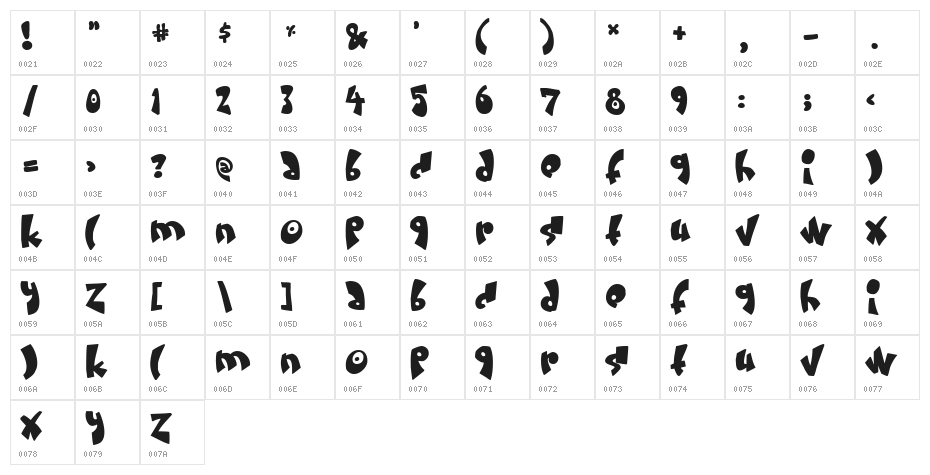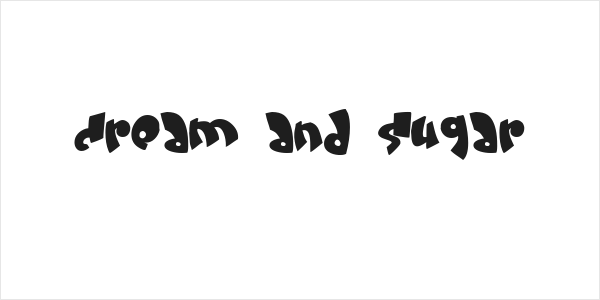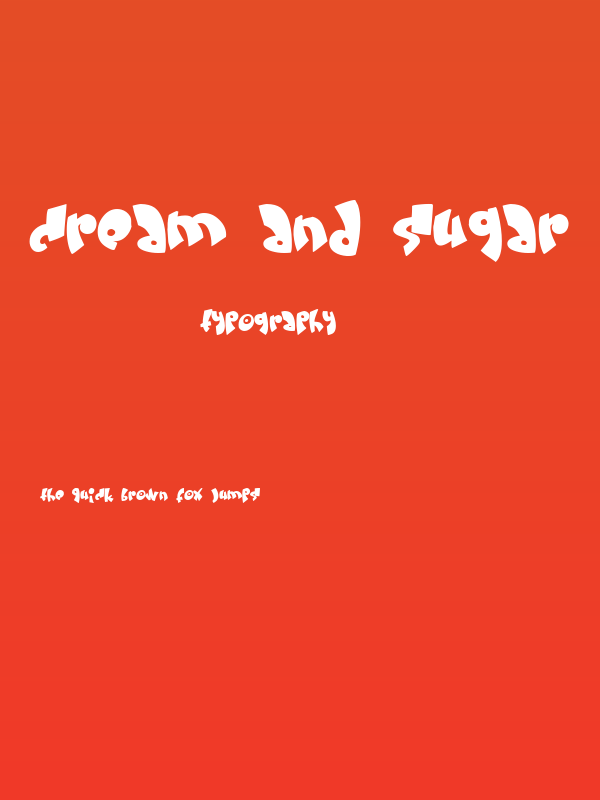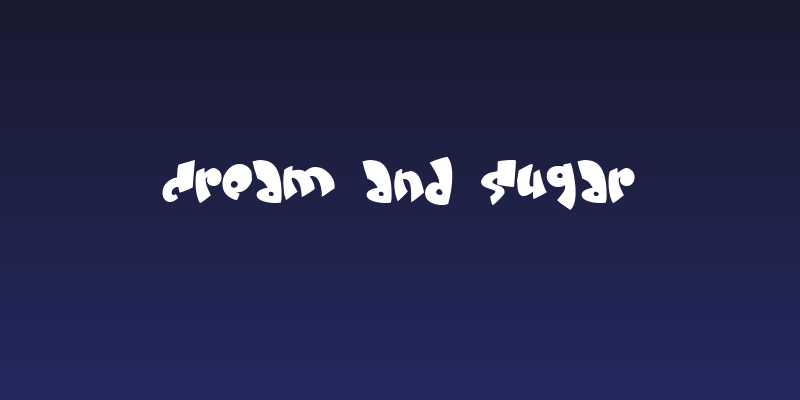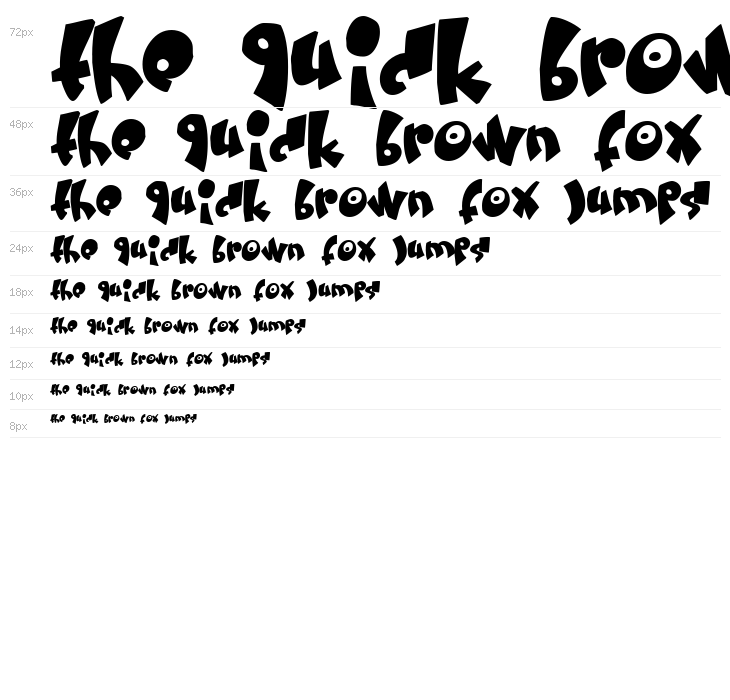
Cream and sugar Font
Cream and sugar Description
This font showcases a playful and bold style with exaggerated curves and a whimsical appearance. The characters are highly stylized, featuring uneven strokes and a dynamic flow that gives a sense of movement. The uppercase and lowercase letters maintain a consistent visual theme, with rounded edges and a slightly irregular baseline. Numbers and special characters follow the same design principles, making the font cohesive and visually engaging. Its unique style makes it stand out, perfect for projects that require a fun and lively touch.